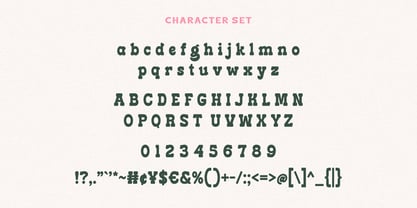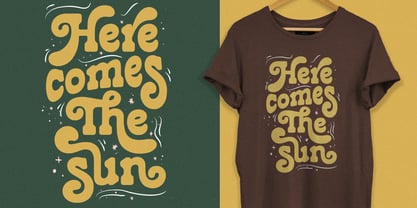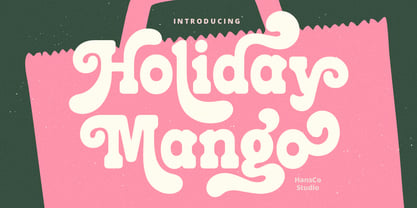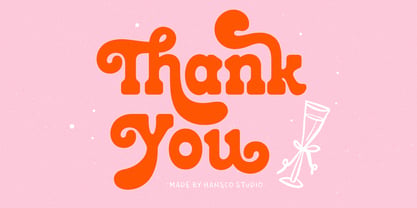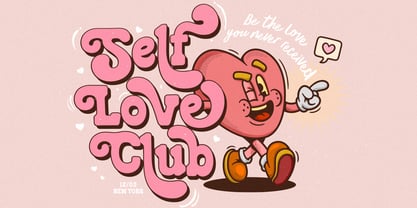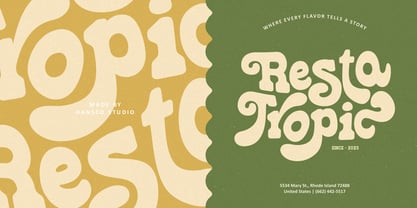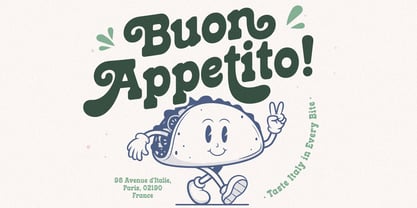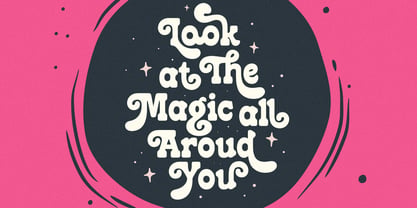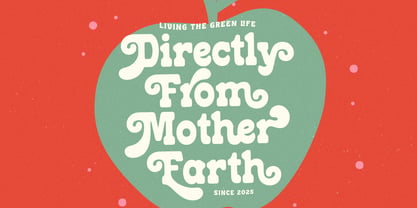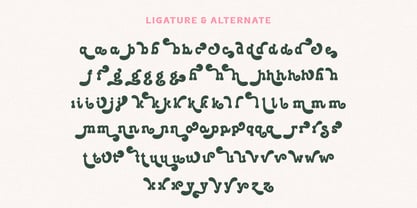
Holiday Mango
by HansCo
The Holiday Mango Font Family was designed by Burhan Afif and published by HansCo. Holiday Mango contains 1 styles. More about this family
Holiday Mango is a unique retro slab type font with rounded characters on each side. This font has alternative characters in it such as letters with tails or swashes that you can adjust to your style and creativity. The alternate characters are in the font but hidden, you can access them using Font Book on Mac or Character Map on Windows. These apps are already on your computer so you don't need to install them. Equipped with all complete characters ranging from uppercase letters, lowercase letters, numbers, punctuation marks and multi-lingual support, this font is ready to be used in any project. Very suitable for logotype, Stickers, Packaging design, Cricut Project, headlines, brand identity, posters, magazines, books, YouTube, Instagram, websites, or any of your creative design projects.
Features :
• Uppercase & Lowercase
• Numbers & Punctuation
• Multilingual
• Ligatures
• Alternates
Designers: Burhan Afif
Current Foundry: HansCo